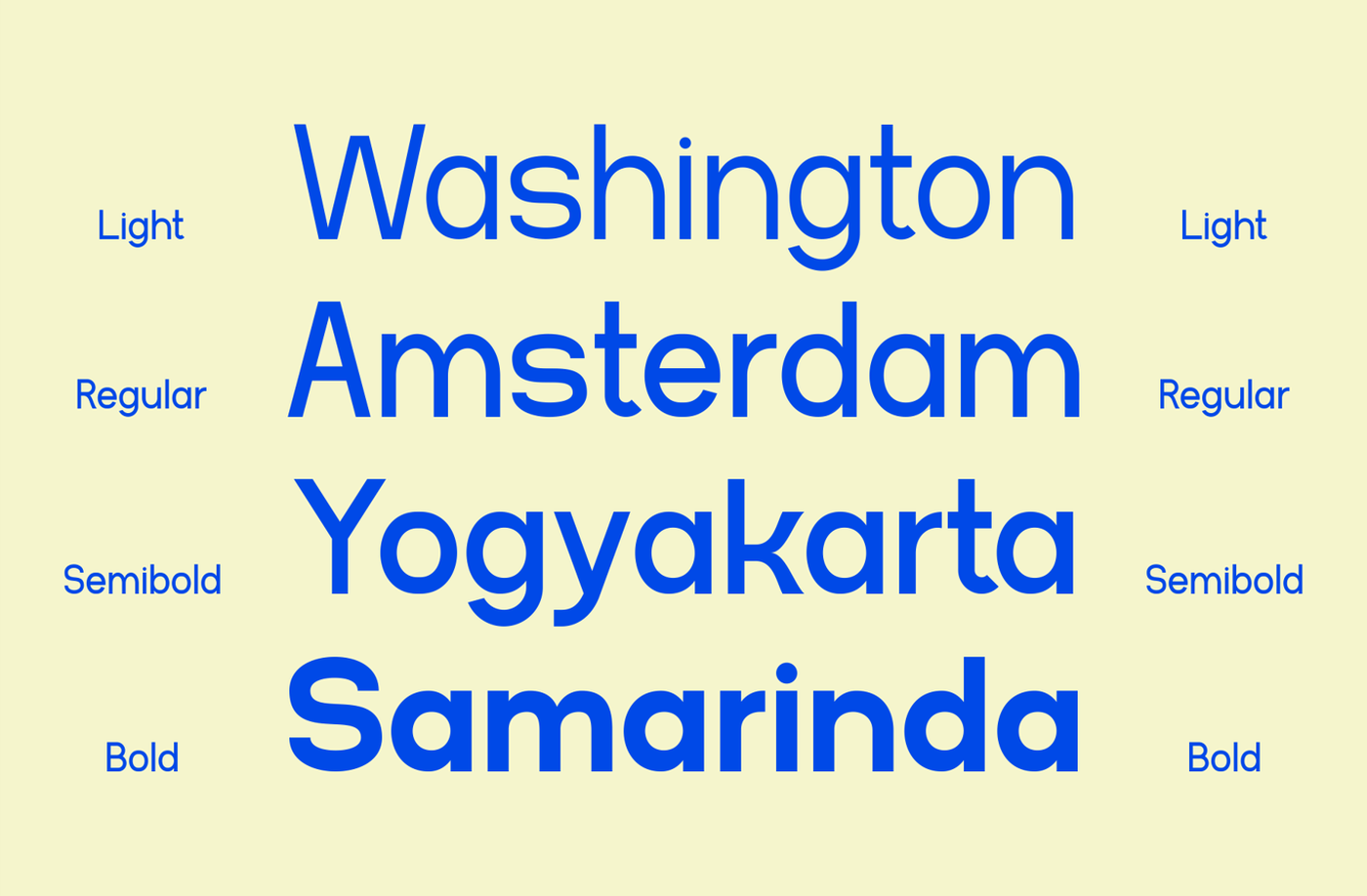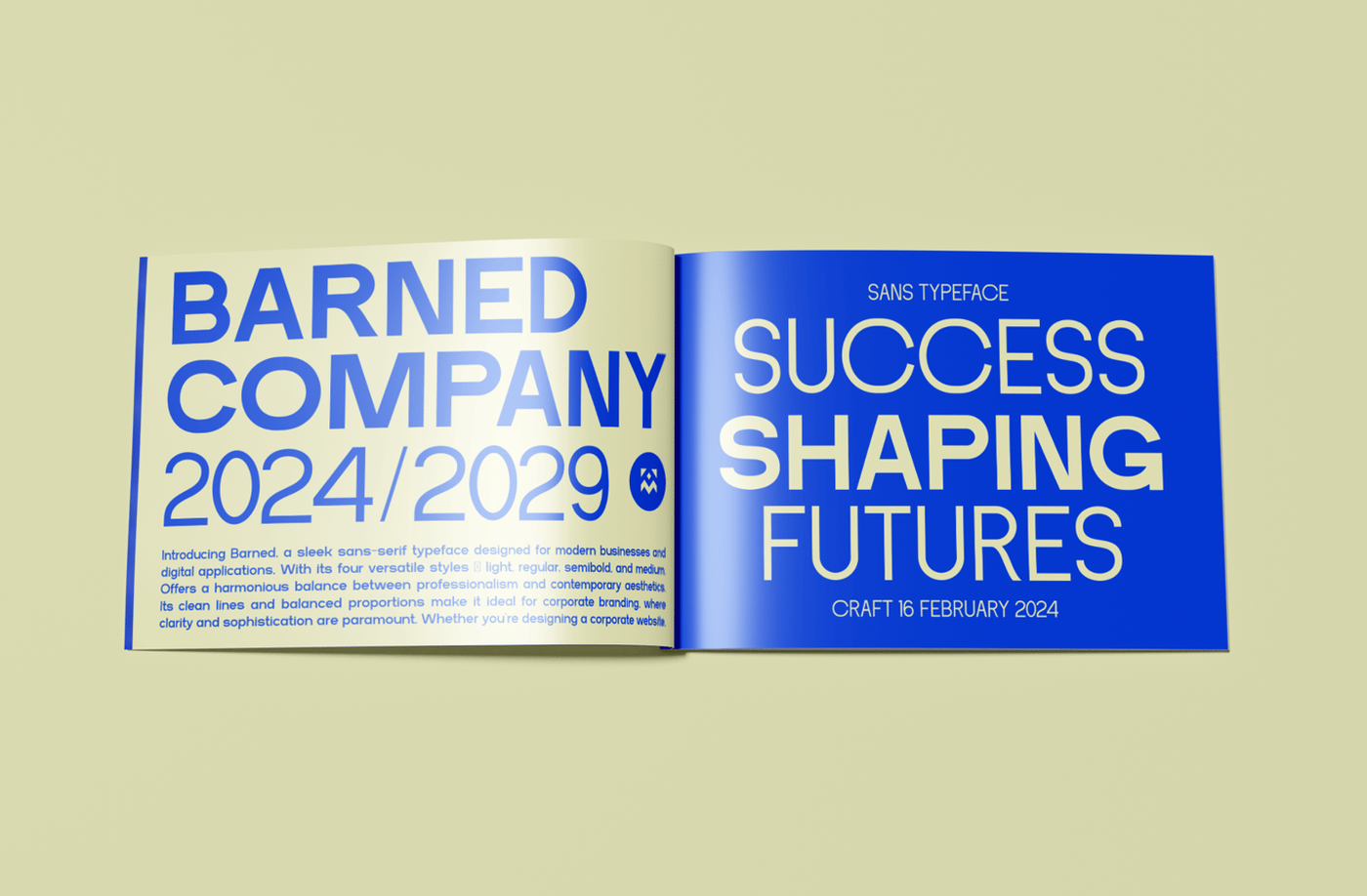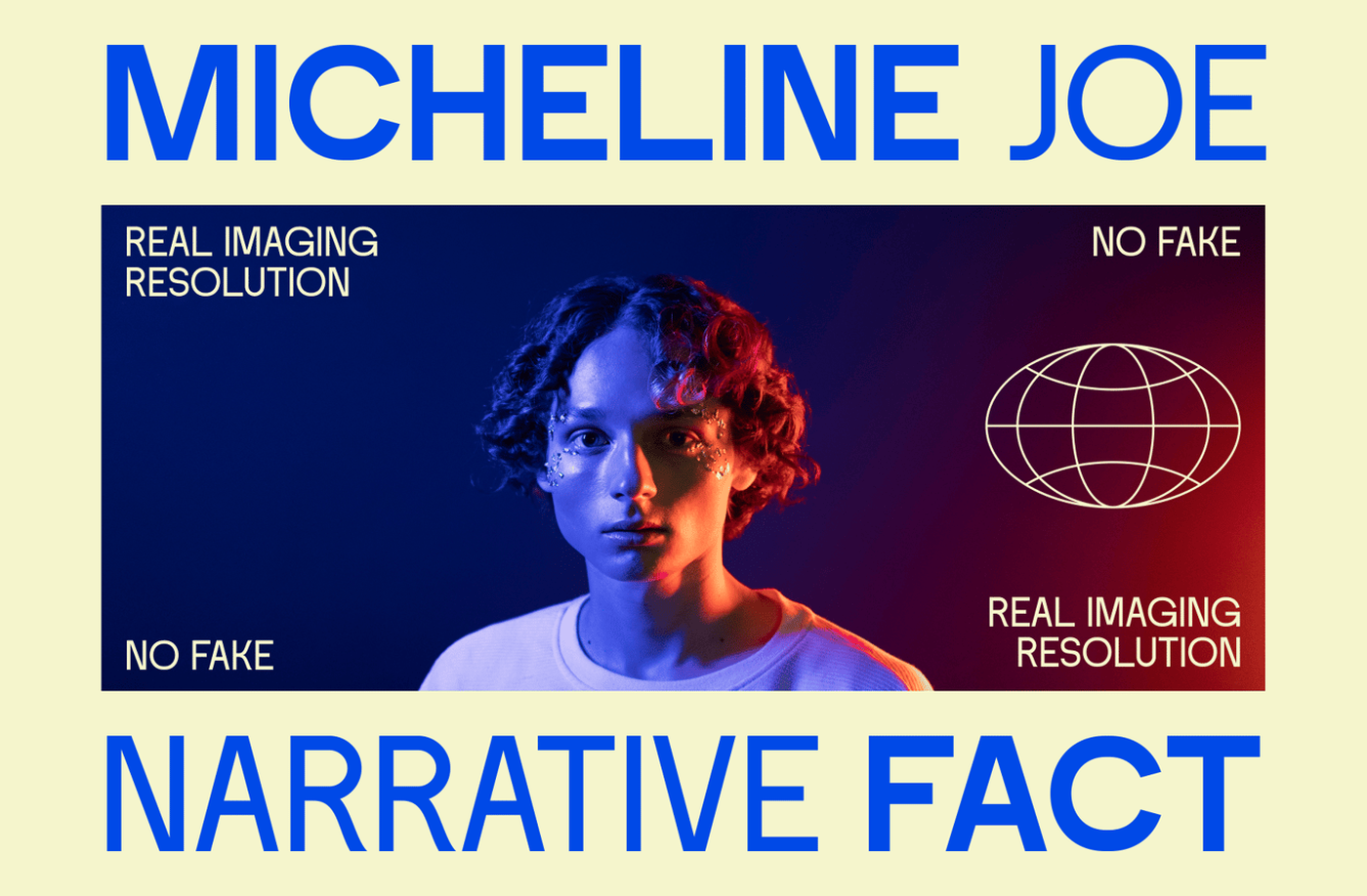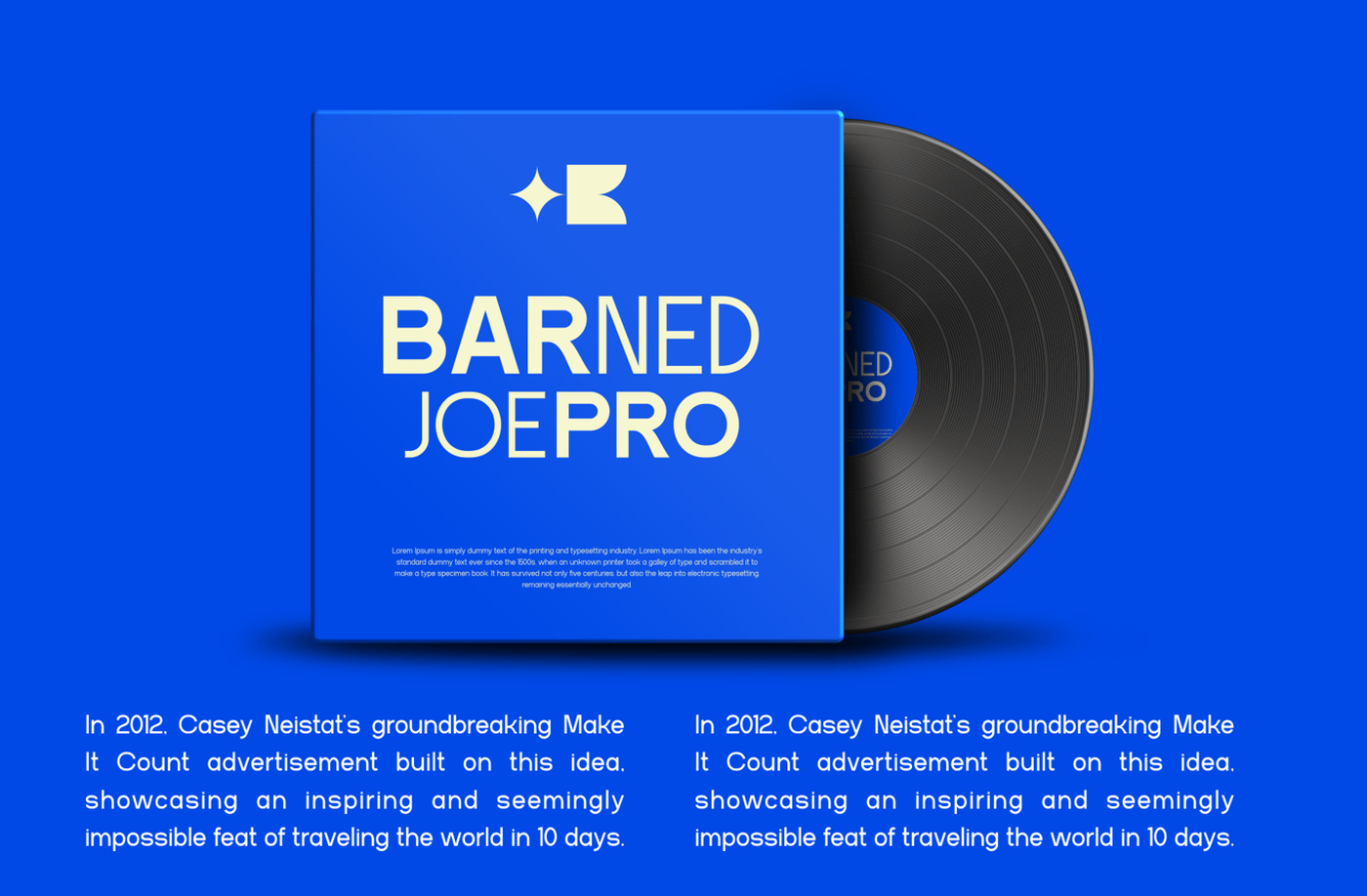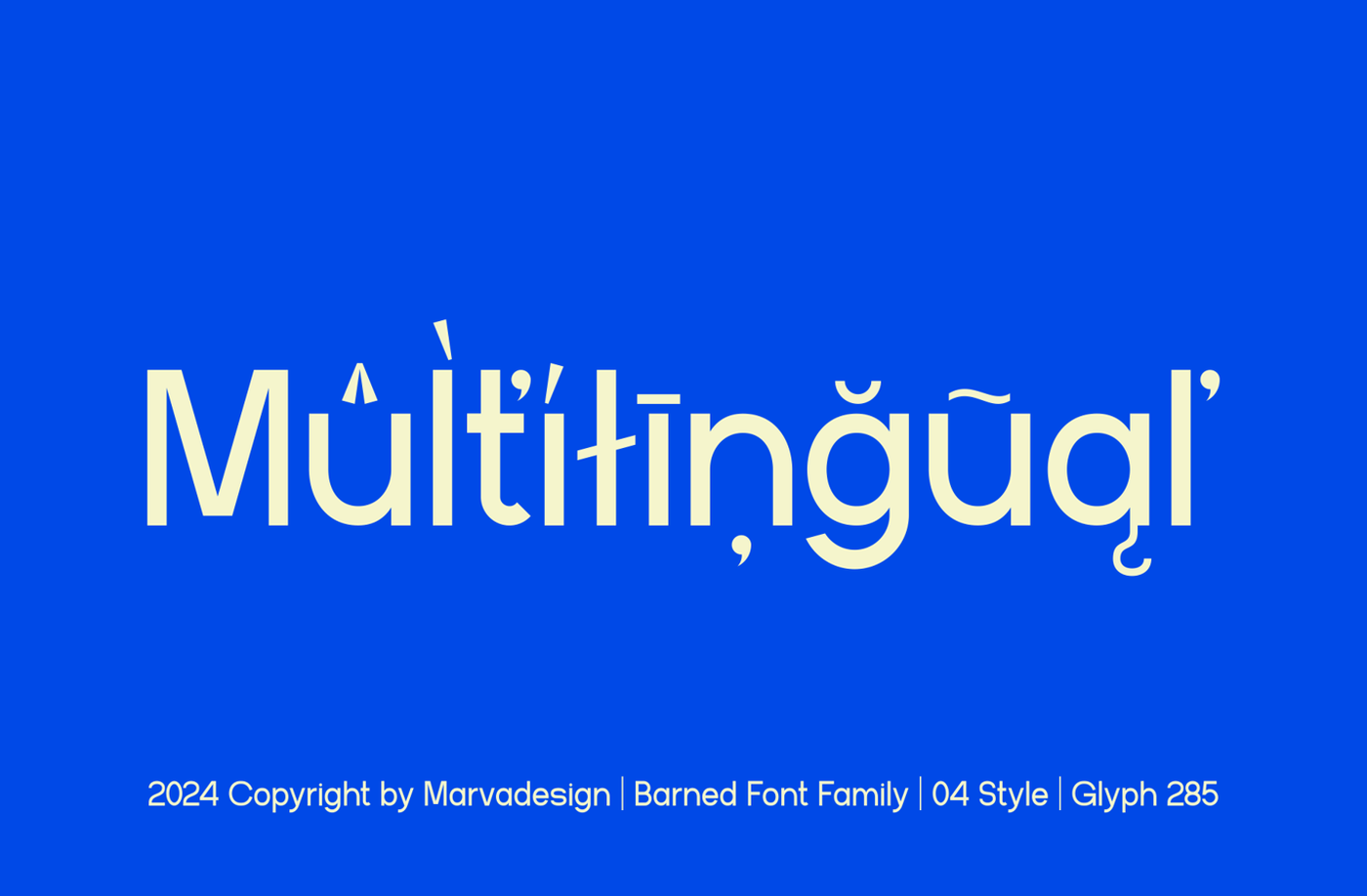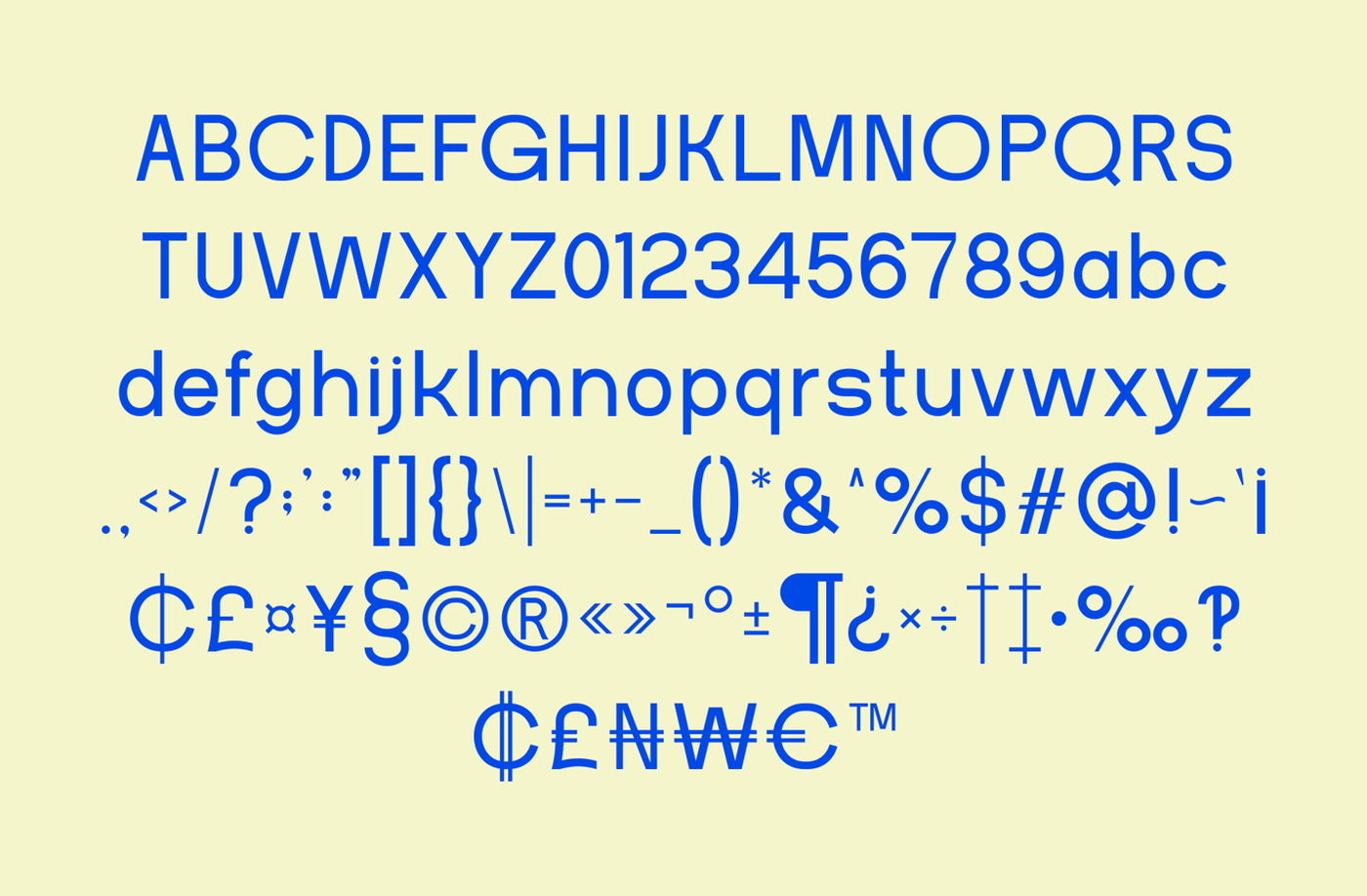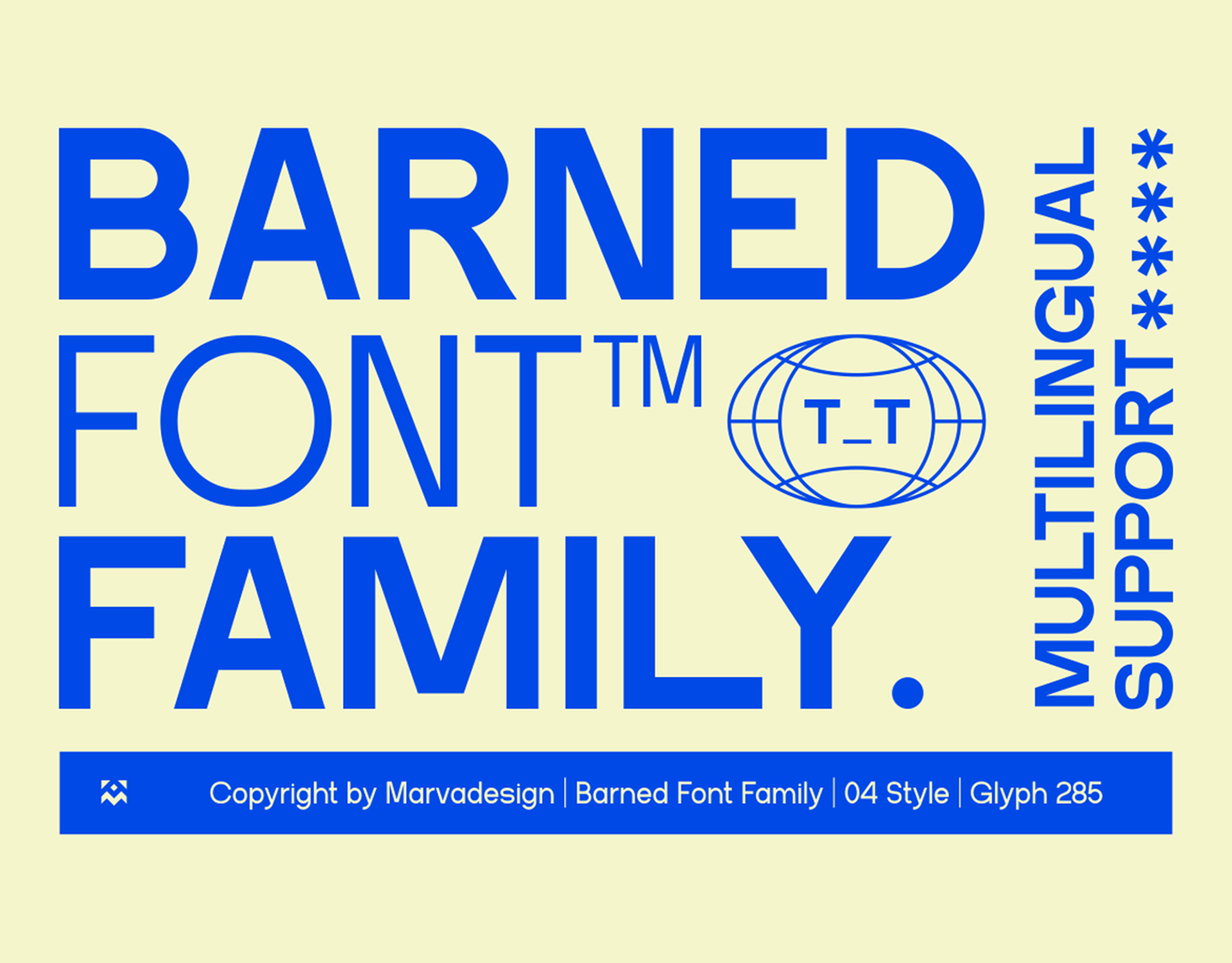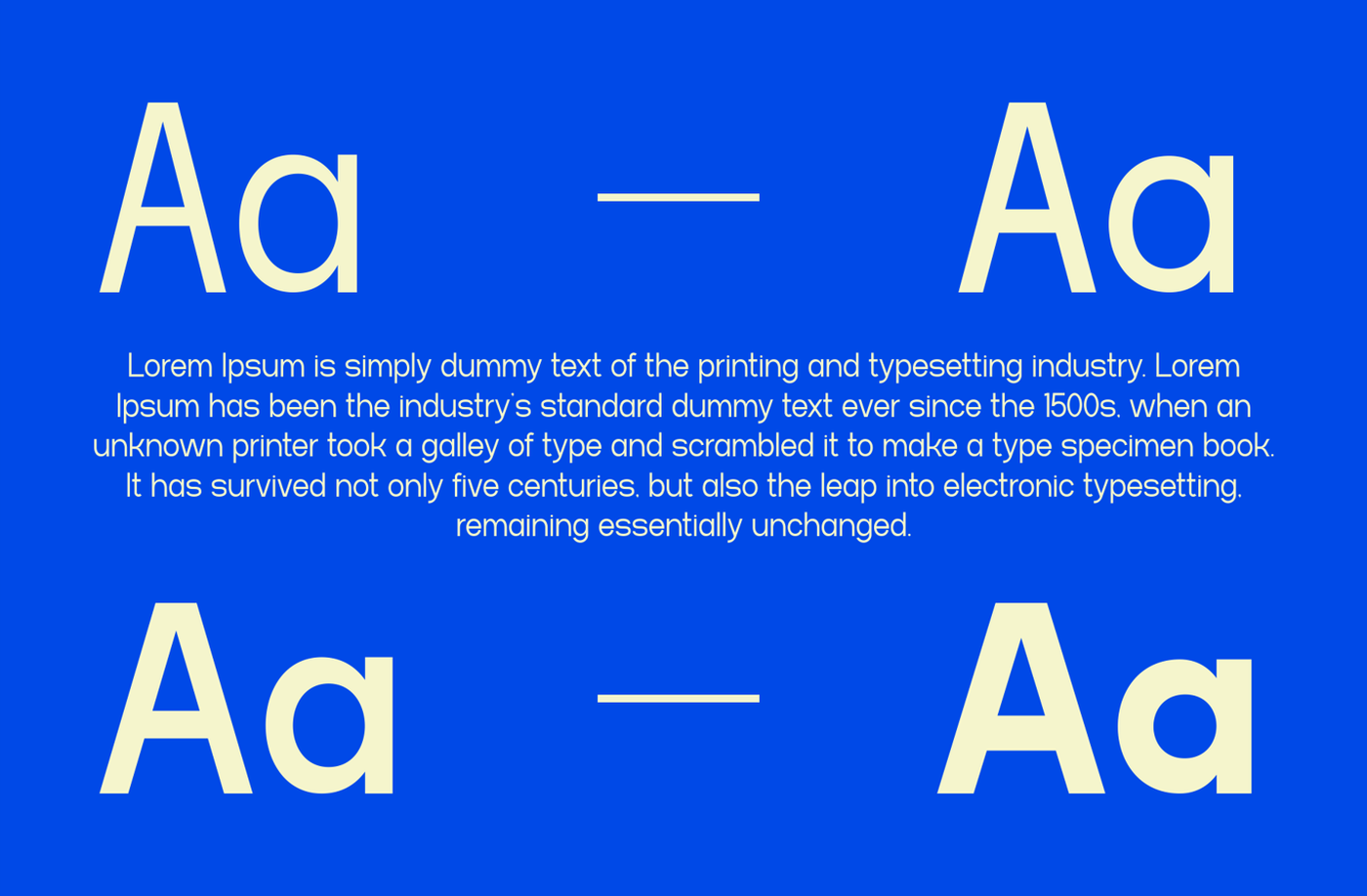
Barned - Modern Sans Serif Font Family
BARNED is a sleek sans-serif typeface designed for modern business and digital applications. With it’s four versatile style, light, regular, semibold and bold. Offers a harmonious balance between professionalism and contemporary aesthetics. It’s clean lines and balanced proportions make it ideal for corporate branding
Designer: Marva Design
Font: Barned